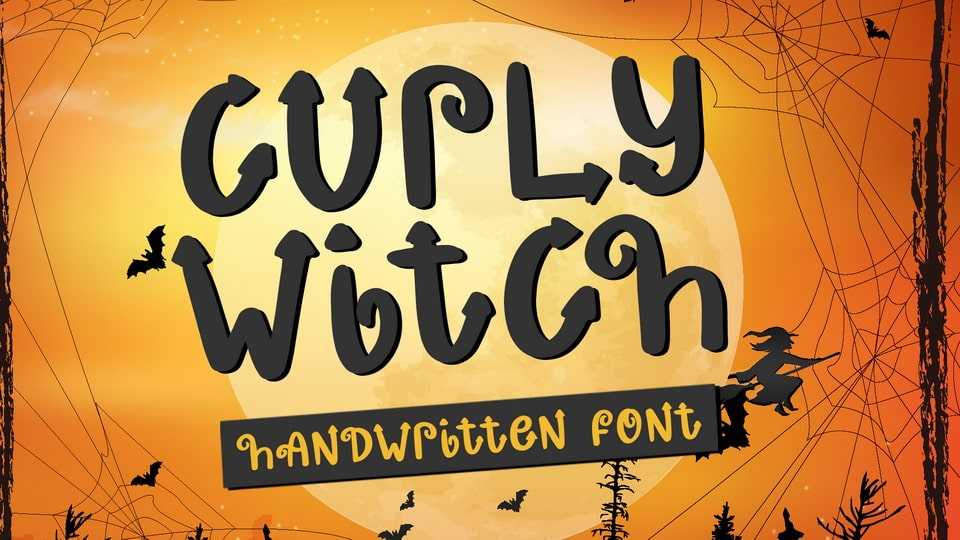
Download Curly Witch font, a fun handwritten typeface with a playful twist. ICurly Witch font is suitable for your spooky Halloween cards, greeting cards, notes, crafts, etc.
Designer: Phantom Creative Studio